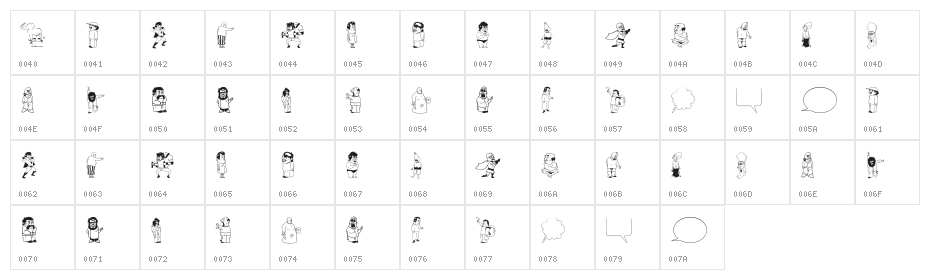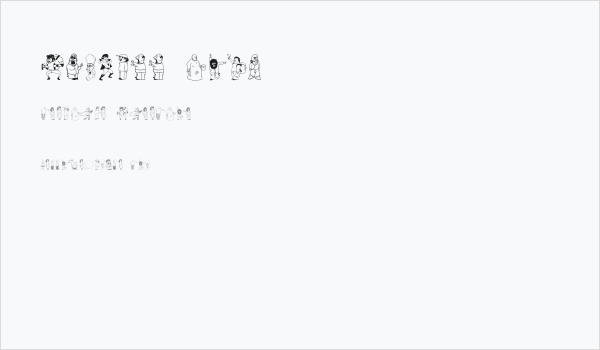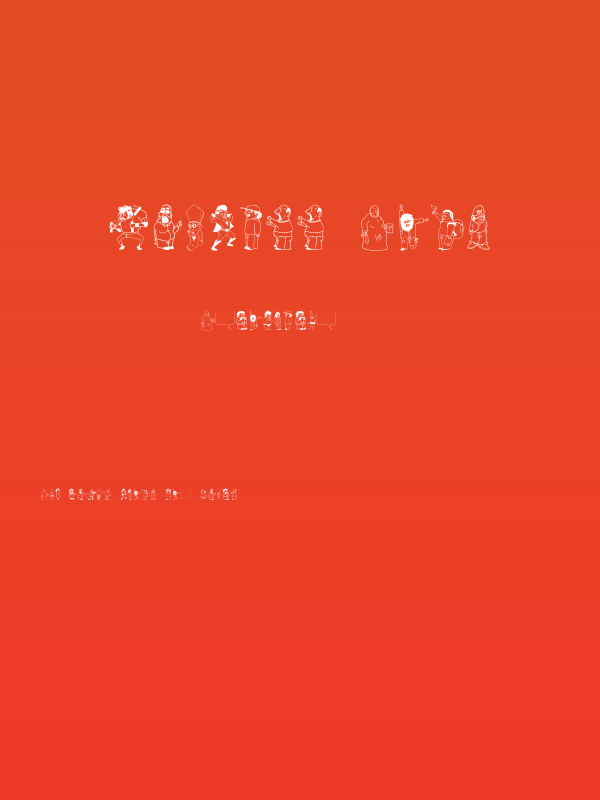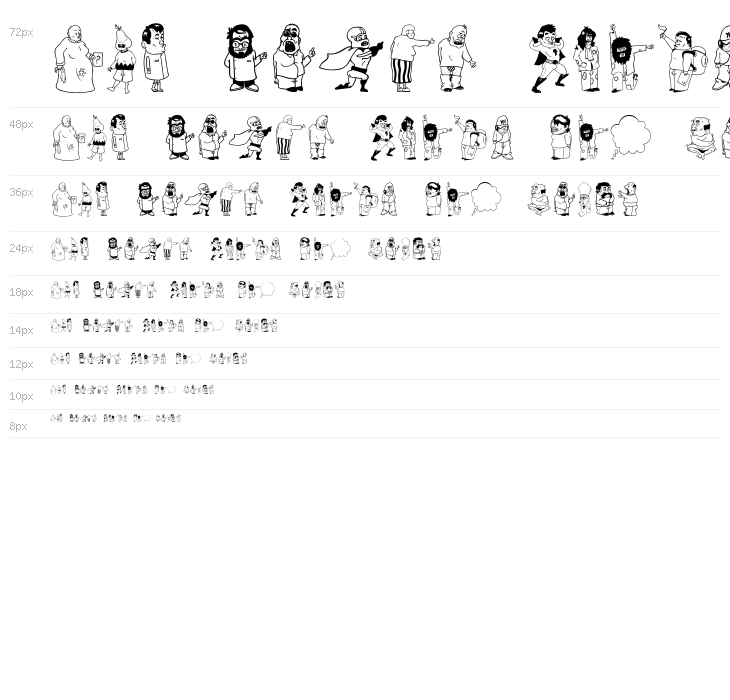
Dumbass Town Font
Dumbass Town Description
A highly decorative and illustrative font composed of quirky cartoon characters representing each letter and symbol, with exaggerated features and humorous poses. The font is playful, hand-drawn, and visually busy, with each glyph acting as a unique character or speech bubble.
| Overall Style | Decorative, Playful, Comic |
| Use Case | Logos, Posters, Headlines, Comics |
| Proposed Projects | Children's books, comic strips, party invitations, playful posters, novelty branding. |